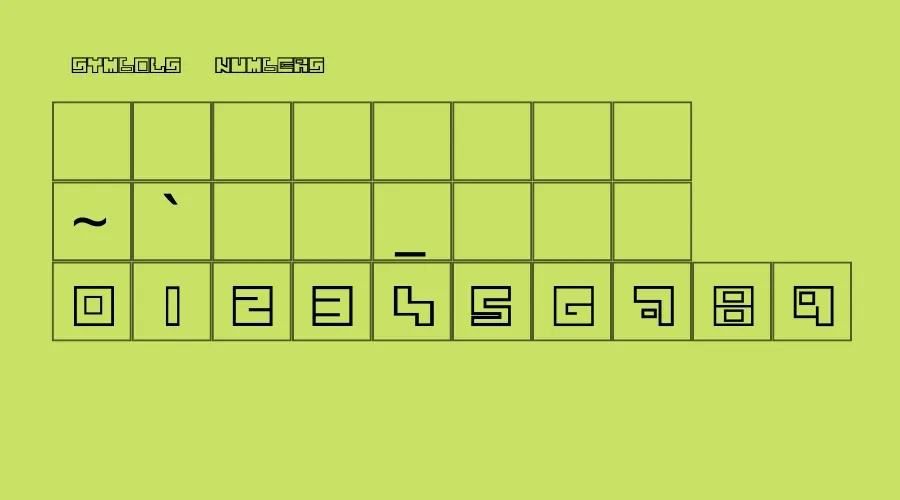
Joker Krew Font
About Joker Krew Font
The Joker Krew font is a stylish and modern techno font created by Vincent Quintela and released in 2017. It is a fancy typeface that has quickly become one of the most popular fonts for use in a variety of digital media designs. The font carries a bold and confident presence, featuring square forms and alluring geometric shapes that make it stand out from other competitors.
When using this font, it’s important to remember that it’s not just a basic typeface. This font has a lot of unique features that give it its unique character and style. For example, the font has a subtle – a slight variation in stroke width which adds movement to each letter and gives it a dynamic rhythm.
Joker Krew Typeface is perfectly suited for creating striking logos, flyers, posters, and other branding materials that require an eye-catching visual. Its unique and sophisticated design has also made it popular among web designers and typographers.
Overall, the Joker Krew Typeface is techno-inspired, creative, and sophisticated in the design market. That type of font is the most demanding font because they convey the authentical look to your design from brand design to social media post, Magazine headline to letterhead for anyone.
Is Joker Krew Font a Techno Typeface?
Yes. It’s a Techno typeface that has quickly become one of the most popular fonts for use in a variety of digital media designs that typeface has been designed by Vincent Quintela.